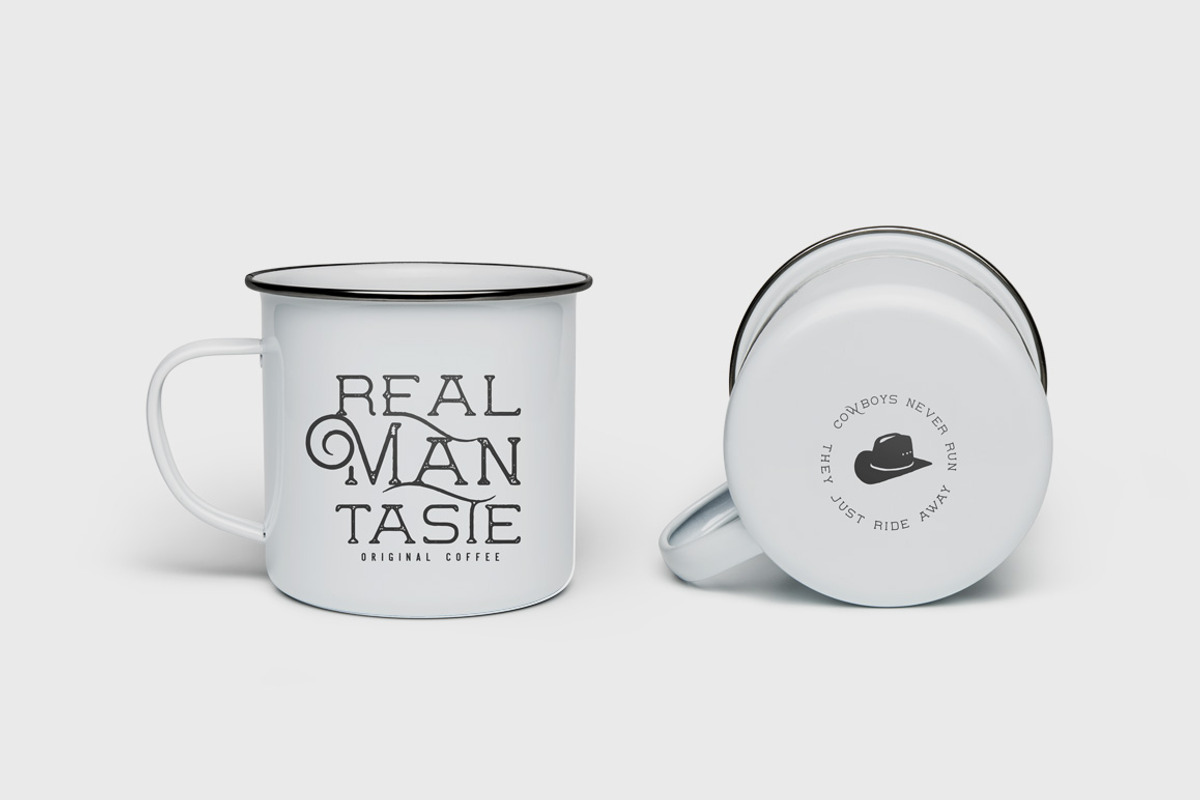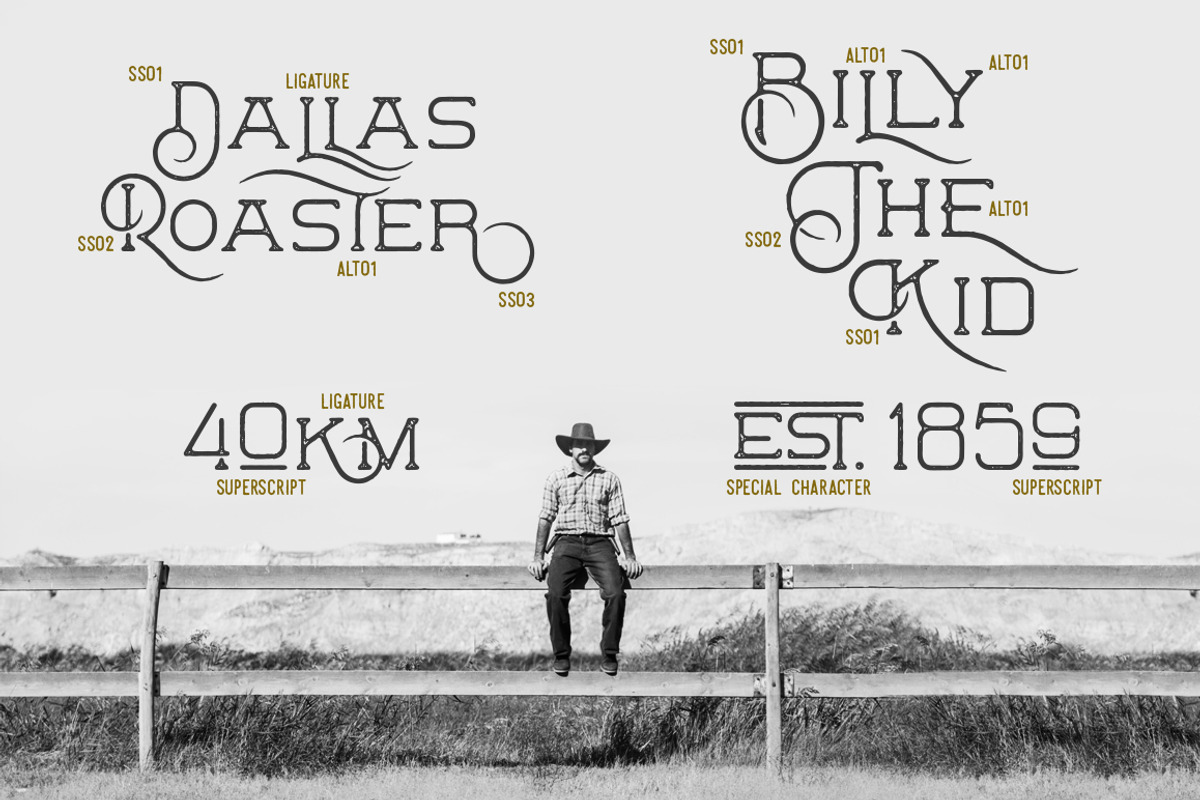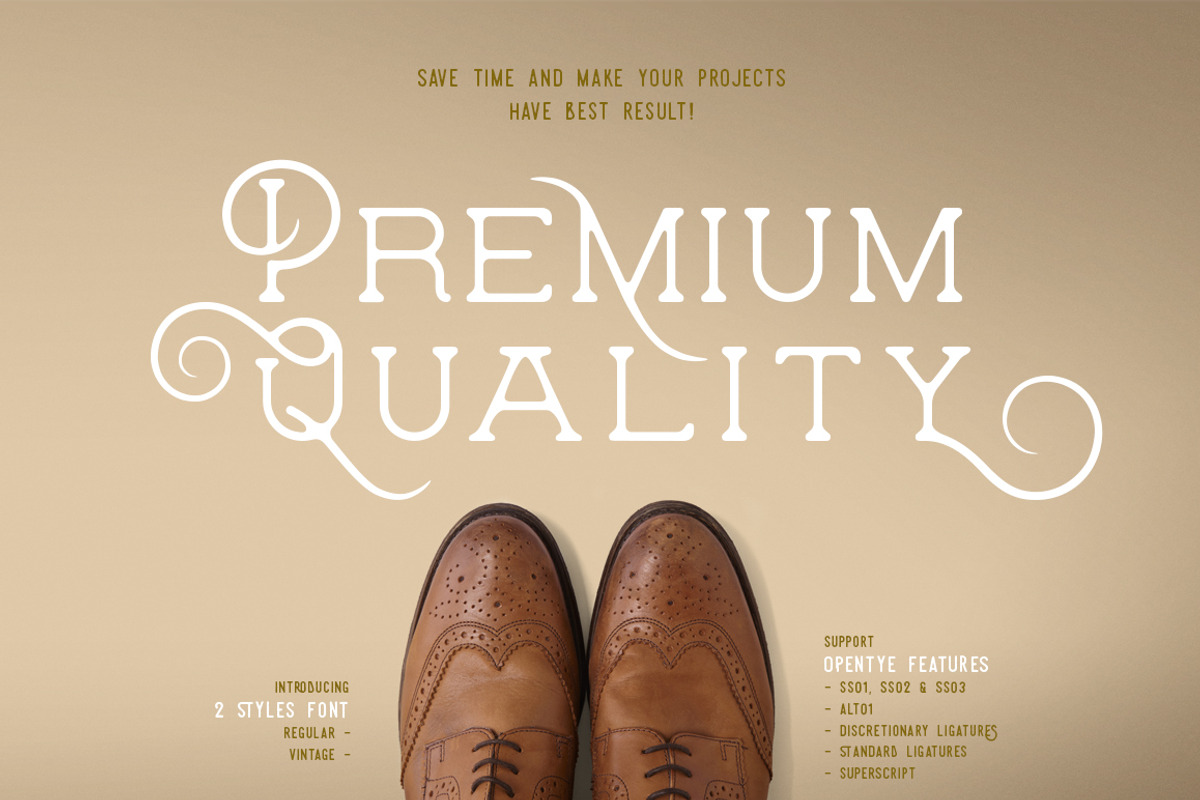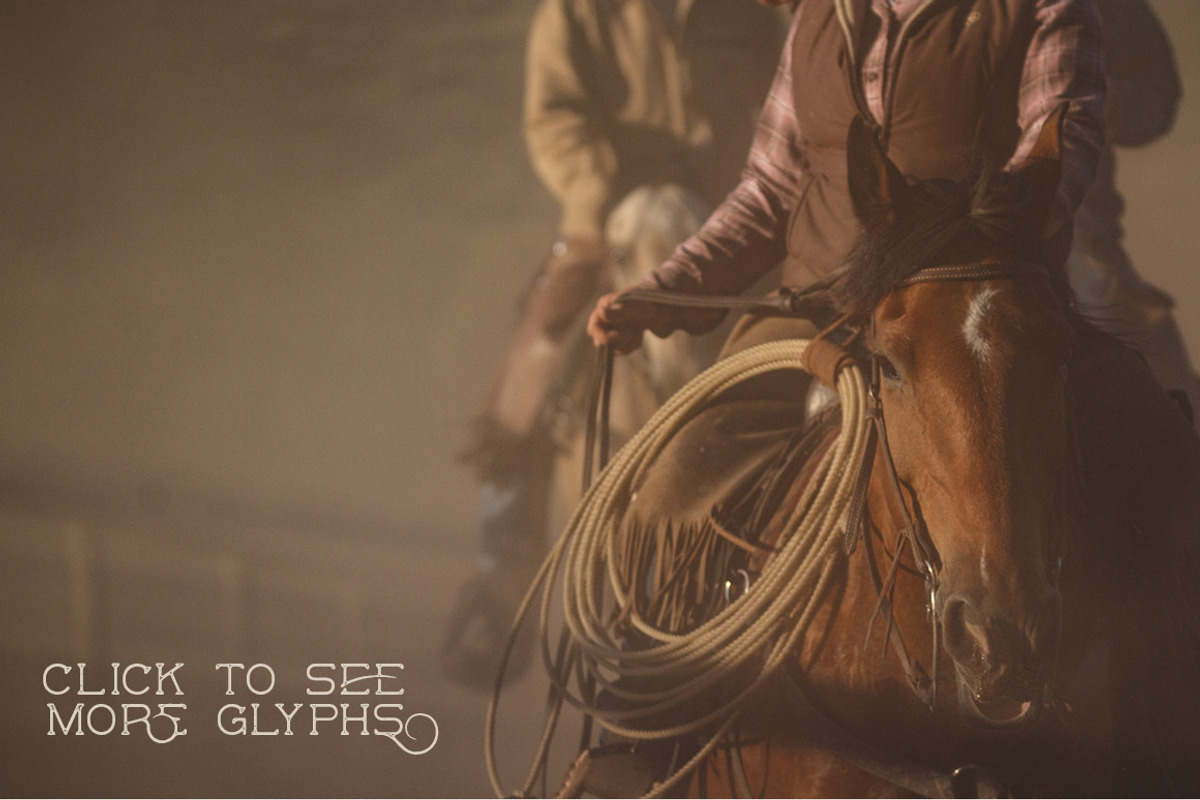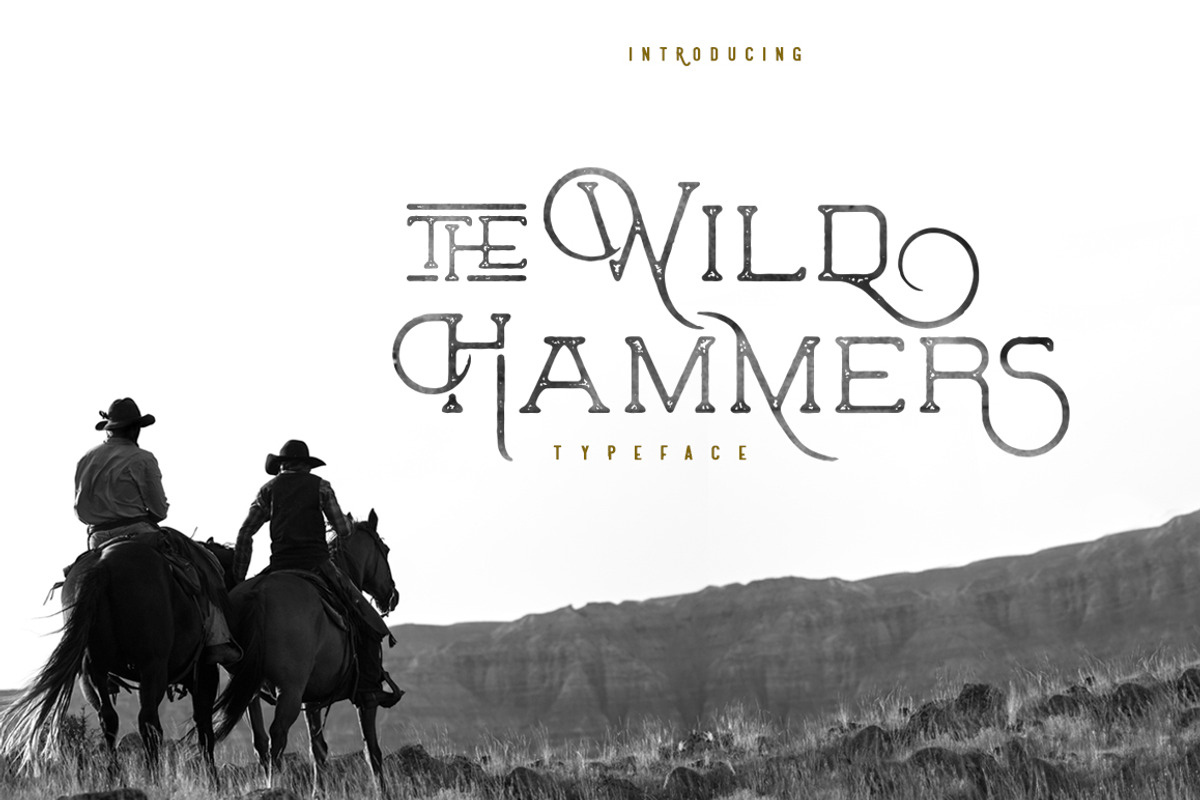
The Wild Hammers
Say hi to The Wild Hammers; An American flavor typeface. Really easy to use for create logo, display font, t-shirt, leather product and any classic or modern general design.
The Wild Hammers comes with Opentype features alternate upper and lowercase characters, and supports international languages. To check all glyphs please click 5th preview!